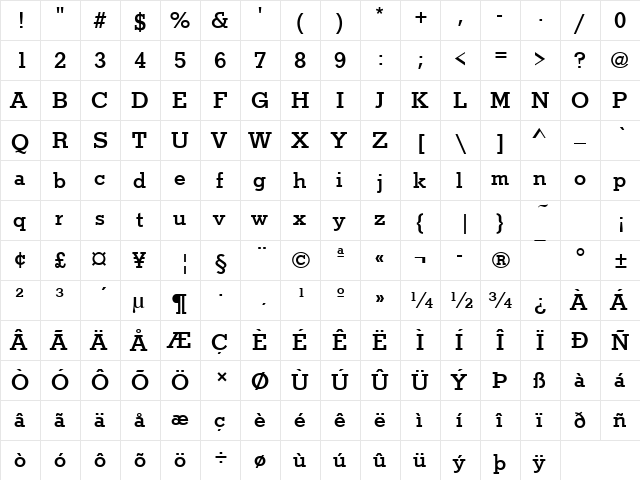
Stymie Becker Med Regular
Design Context for Stymie Becker Med Typeface
Stymie Becker Med is a composed and adaptable typeface that performs quietly and consistently across a wide range of design contexts.